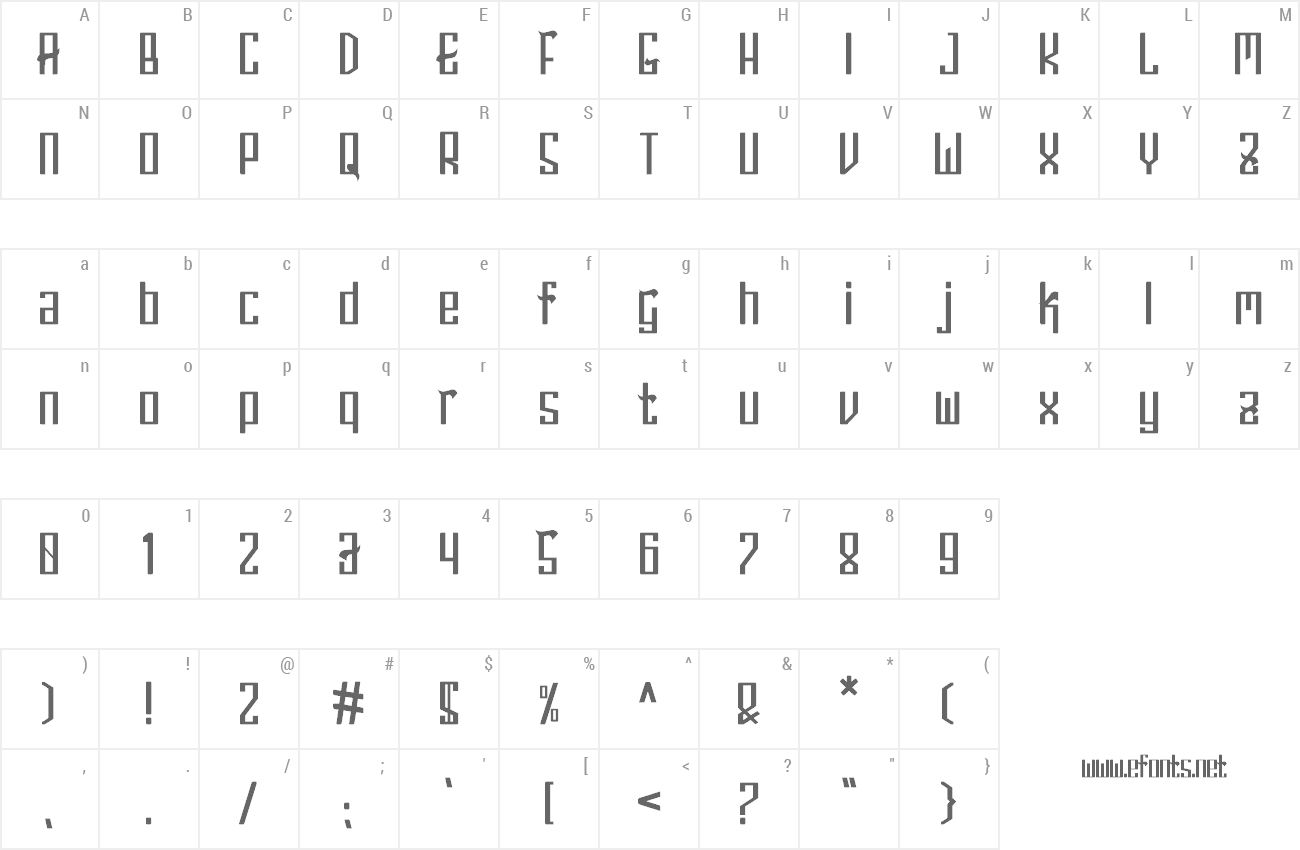
| Font name: | Herison |
| Author: | Dumadi Studios |
| Note by Dumadi Studios | |
| Herison Font is a type of display that will look cool when combined with your hobby. |